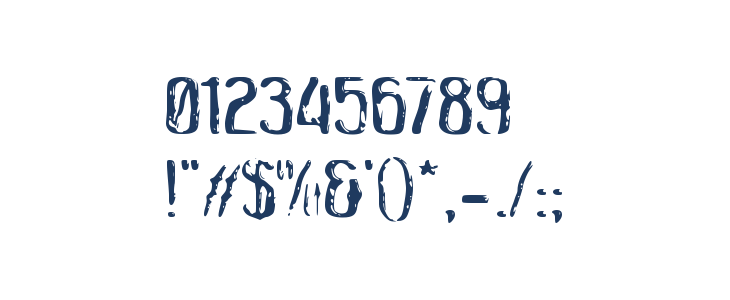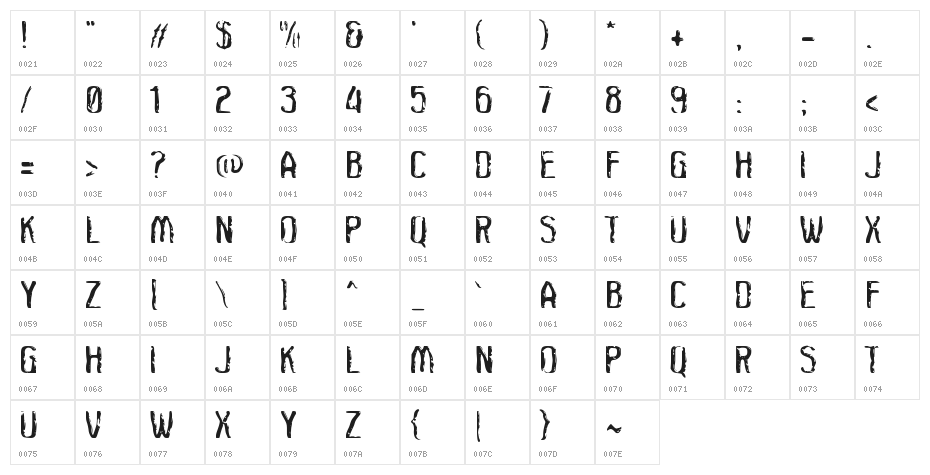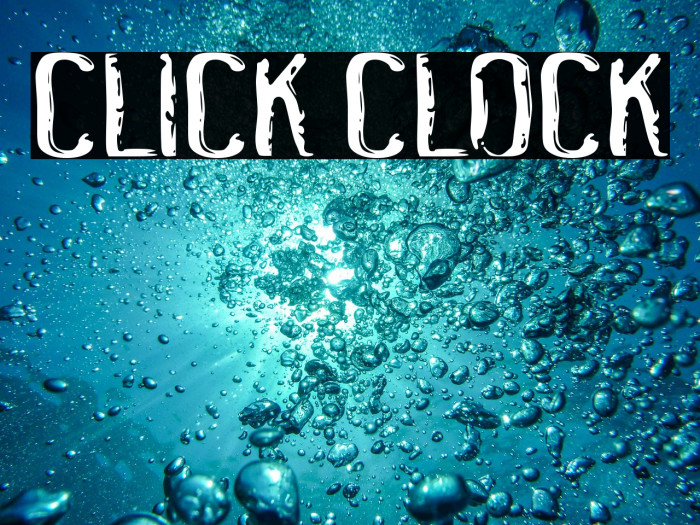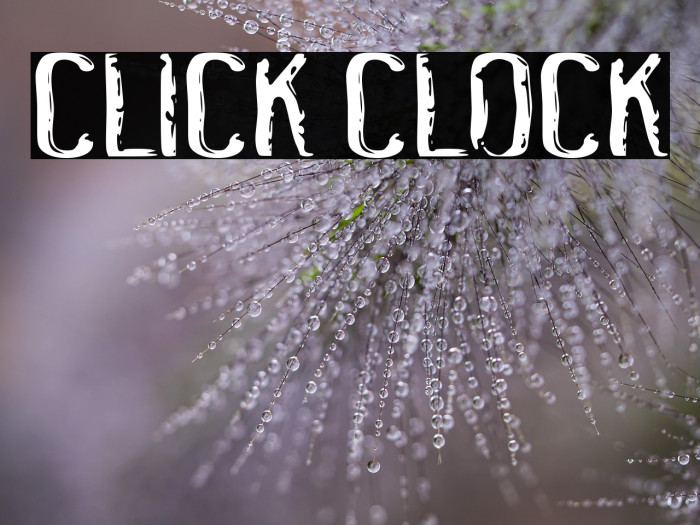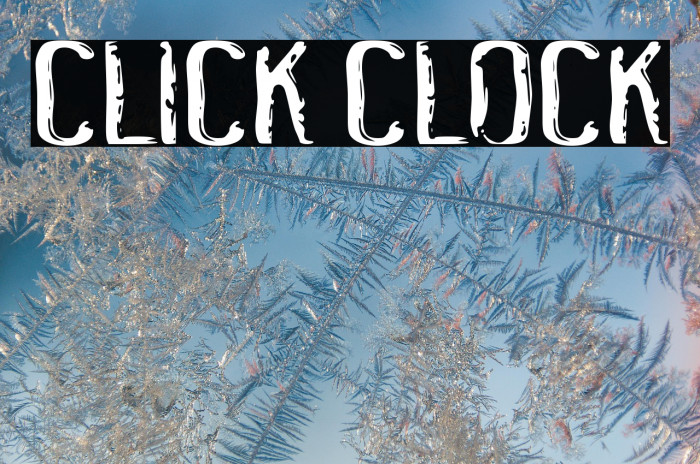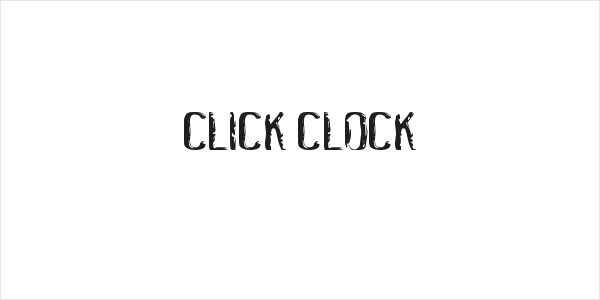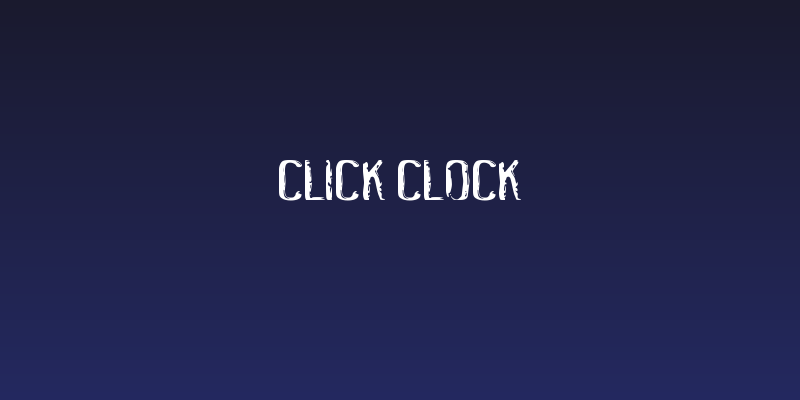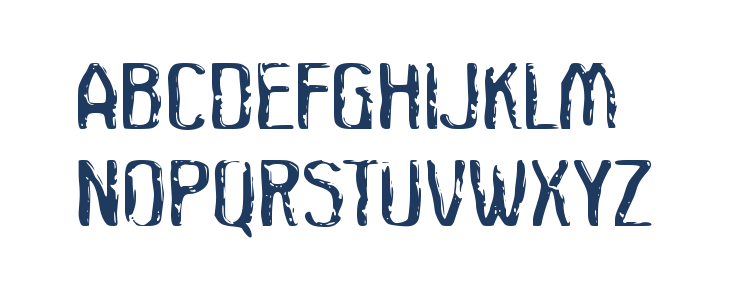
Click Clock Font
Click Clock Description
This font features a distressed and weathered appearance, giving it a rugged and vintage feel. The characters are bold and have a rough texture, with uneven edges that create a sense of movement and energy. The uppercase and lowercase letters maintain a consistent style, while the numbers and special characters complement the overall aesthetic. This font is ideal for projects that require a bold statement or a touch of nostalgia, such as posters, album covers, or themed events. Its unique style makes it stand out, capturing attention with its dynamic and artistic flair.
| Overall Style | Vintage |
| Proposed Projects | Ideal for posters, album covers, themed events, and any project needing a bold, artistic touch. |